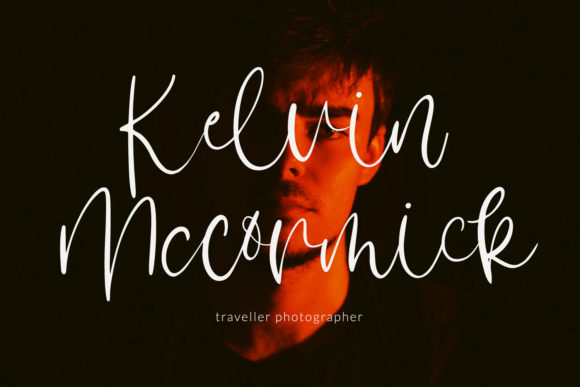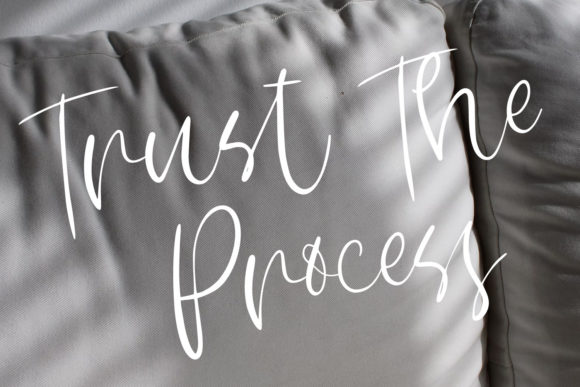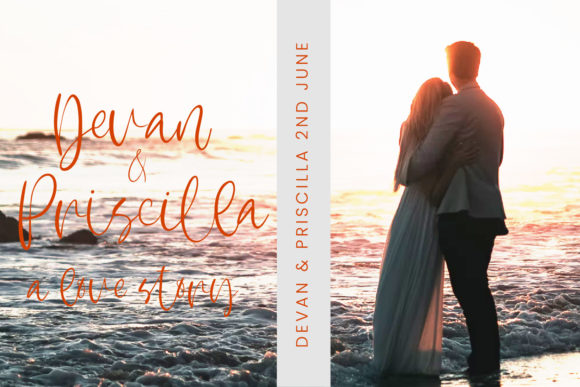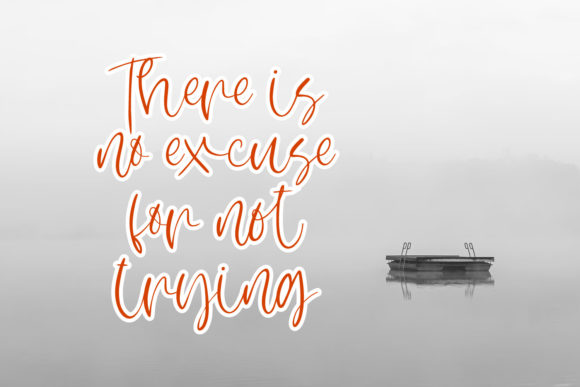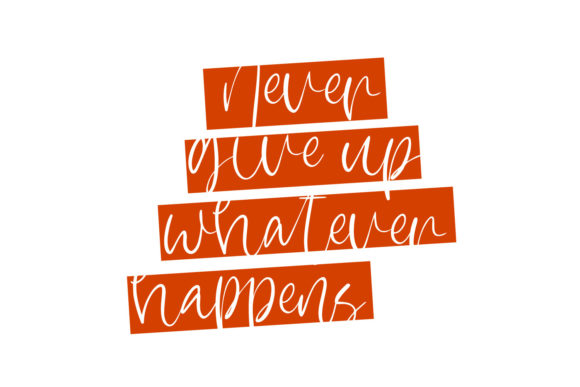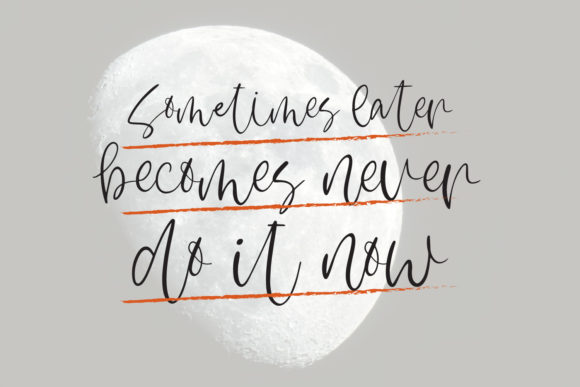
Introducing Colossal Love Font: The Ultimate Choice for Romantic Designs
Are you a designer or crafter looking for a font that can add a touch of romance and elegance to your designs? Look no further than Colossal Love Font! This beautiful, handwritten font is perfect for creating stunning wedding invitations, cards, and other designs that require a personal and loving touch.
What Makes Colossal Love Font So Special?
Colossal Love Font is a sweet and delicate handwritten font that is sure to capture the hearts of anyone who sees it. Its dainty and joyful appearance makes it an ideal choice for designers and crafters who want to create romantic and personalized designs. Whether you’re working on a wedding invitation, a love letter, or a simple greeting card, Colossal Love Font is the perfect choice.
Key Features of Colossal Love Font
- Handwritten and delicate: Colossal Love Font has a beautiful, handwritten appearance that is both elegant and charming.
- Romantic and personalized: Colossal Love Font is perfect for creating romantic and personalized designs. Its sweet and delicate appearance makes it an ideal choice for wedding invitations, love letters, and other designs that require a loving touch.
How to Use Colossal Love Font in Your Designs
Using Colossal Love Font in your designs is easy! Here are a few tips to get you started:
- Wedding invitations: Colossal Love Font is perfect for creating beautiful and elegant wedding invitations. Use it to create stunning invitations that will set the tone for the big day.
- Greeting cards: This font is also great for creating greeting cards for special occasions. Use it to create personalized and romantic cards that will make your loved ones feel special.
- DIY projects: Colossal Love Font is perfect for DIY projects such as scrapbooking, journaling, and other paper crafts. Use it to add a personal touch to your projects.
Why Designers and Crafters Love Colossal Love Font
Designers and crafters love Colossal Love Font for many reasons. Here are a few:
- Unique and elegant: Colossal Love Font has a unique and elegant appearance that sets it apart from other fonts. Its delicate and handwritten appearance makes it perfect for creating romantic and personalized designs.
- Versatile: Colossal Love Font is versatile and can be used in a variety of designs, from wedding invitations to greeting cards and DIY projects.
In conclusion, Colossal Love Font is a beautiful and elegant handwritten font that is perfect for designers and crafters who want to create romantic and personalized designs. Its delicate and joyful appearance makes it an ideal choice for wedding invitations, cards, and other designs that require a loving touch. With its PUA encoding and ease of use, Colossal Love Font is a must-have for any designer or crafter looking to add a touch of romance and elegance to their designs.